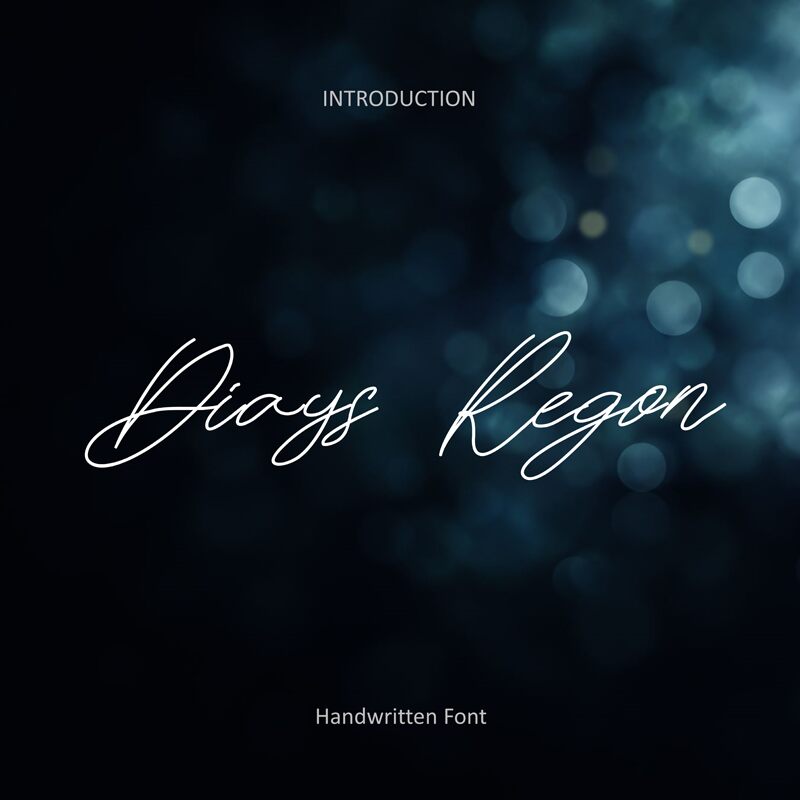
Diays Regon signature font designed by Teguh Valentino is a thin lettered and delicate script font. This font flows beautifully on each of your creations and it embellishes all of them.